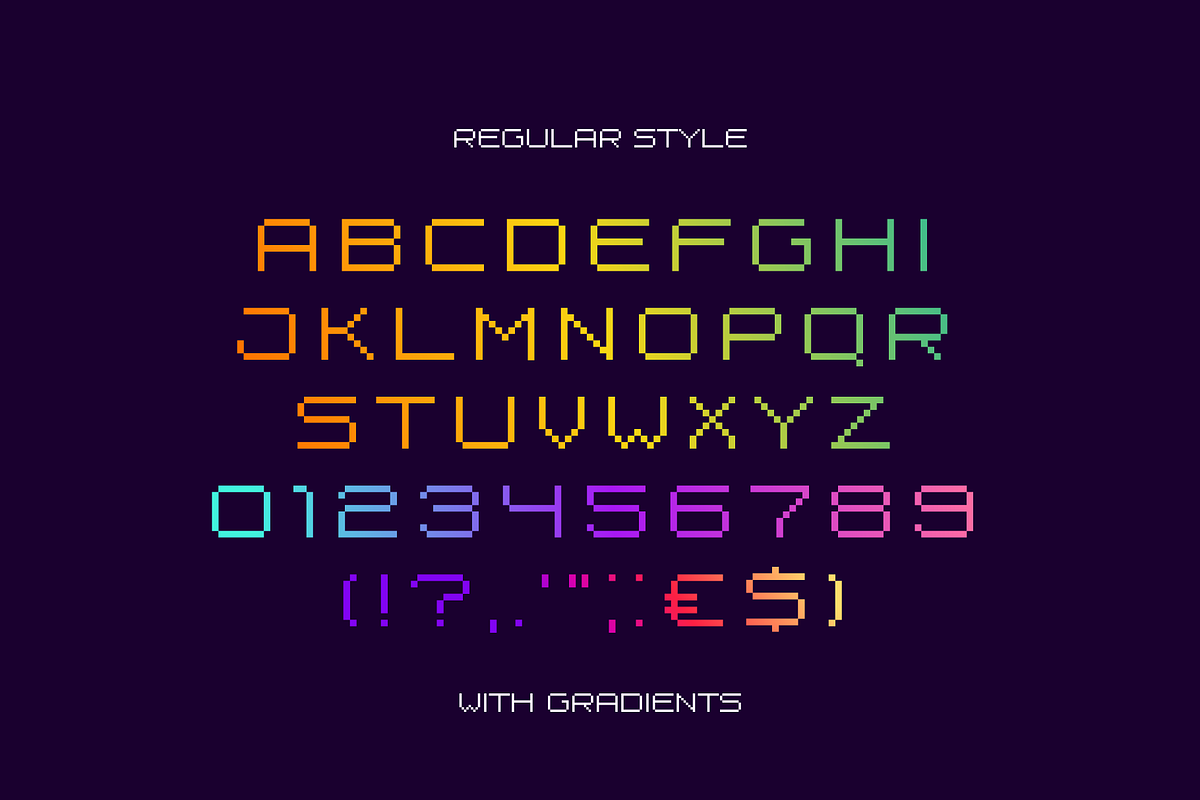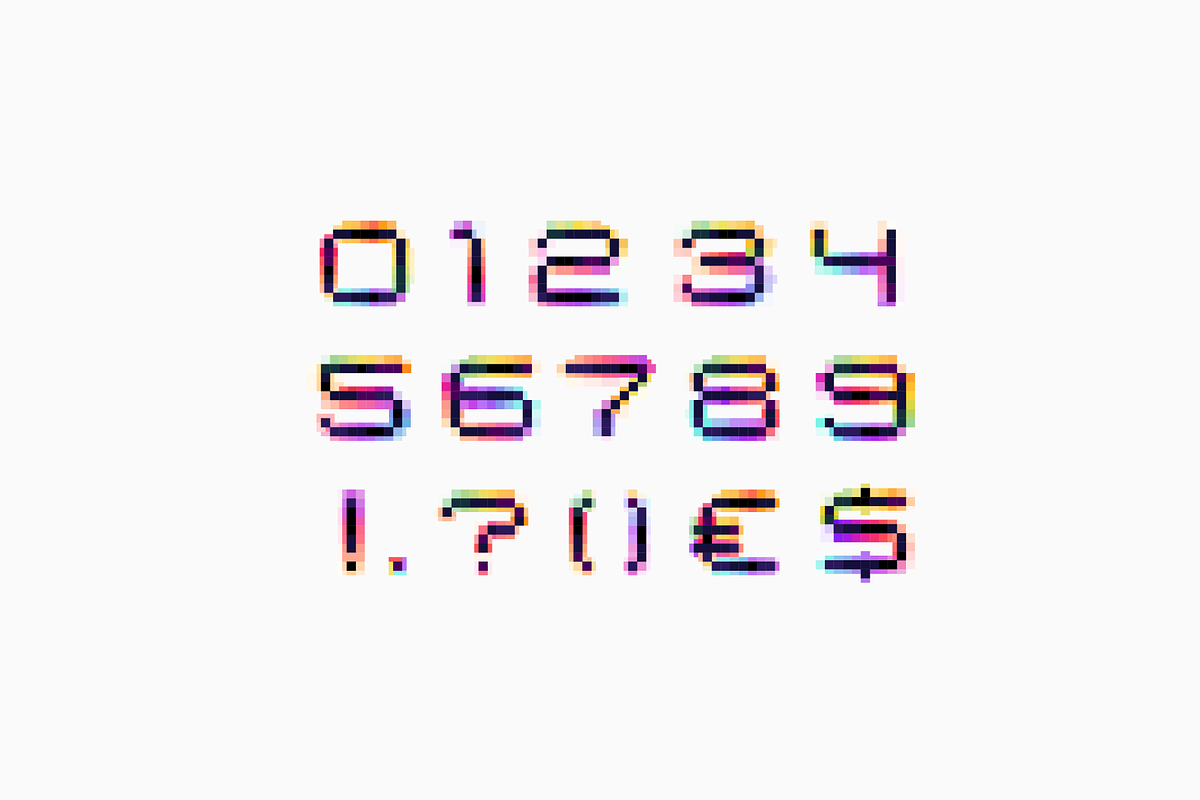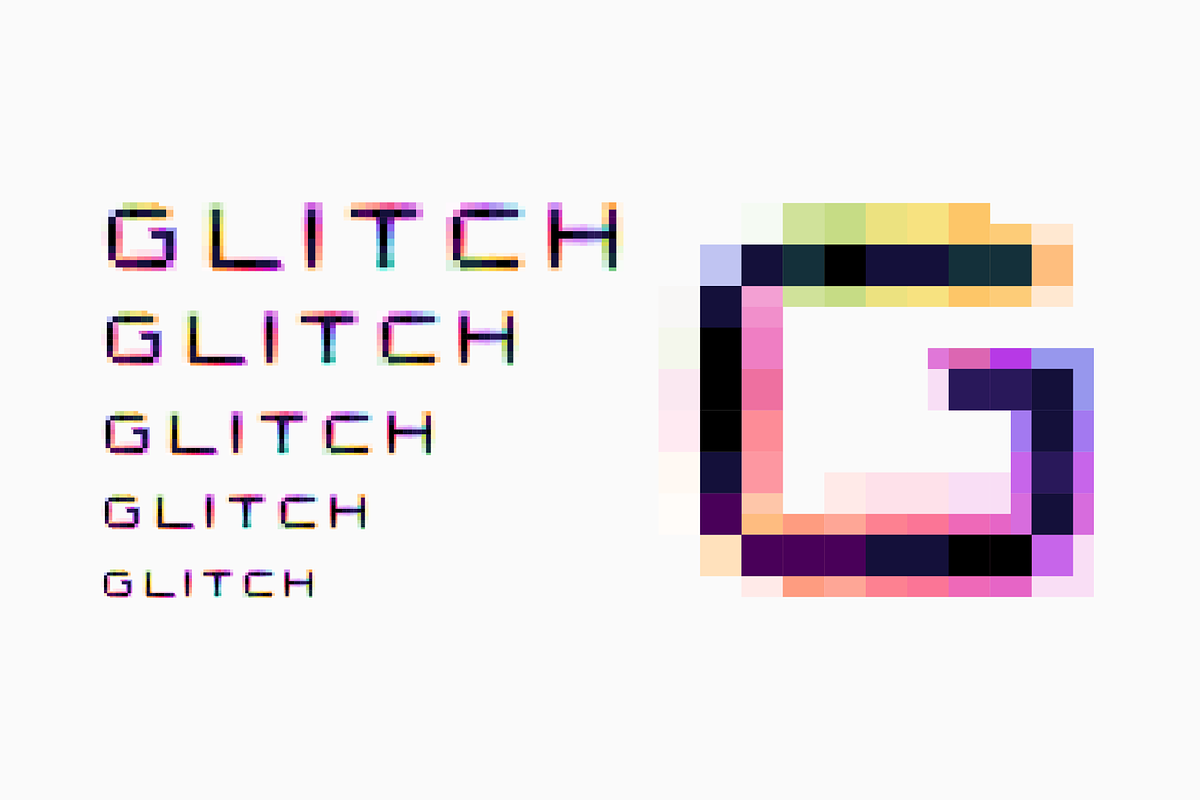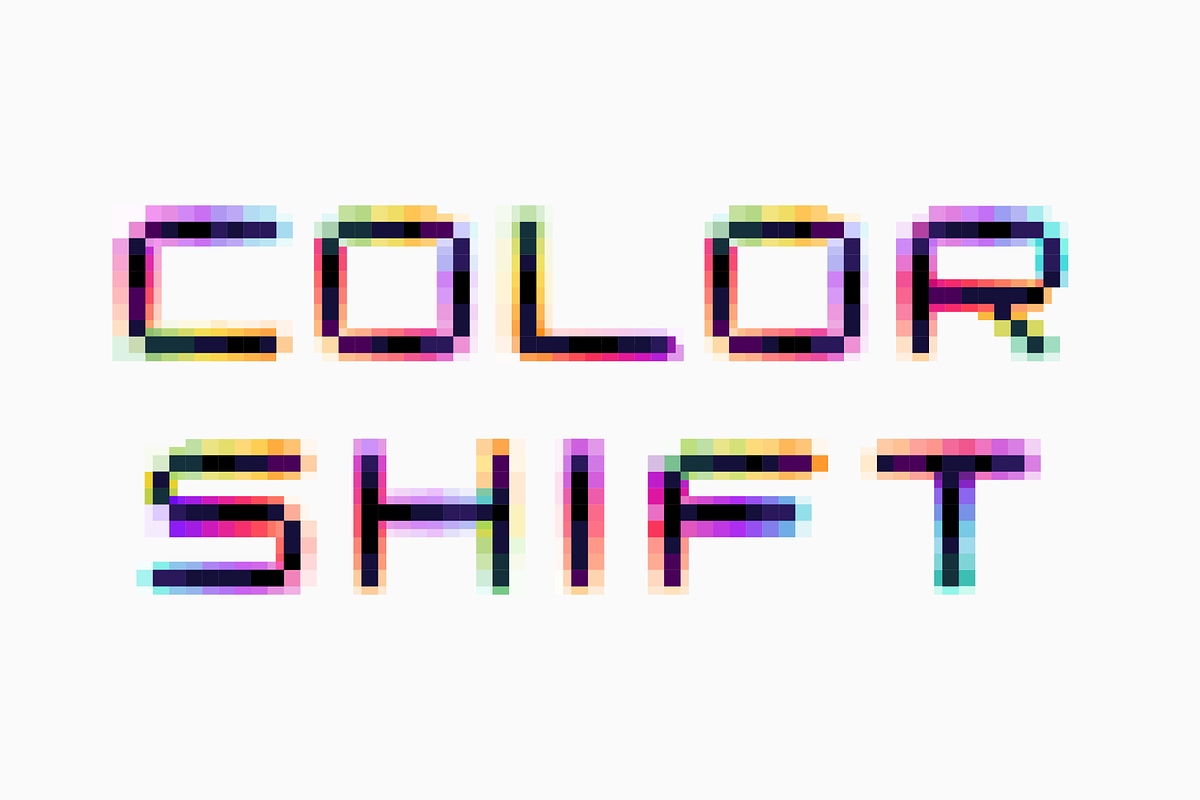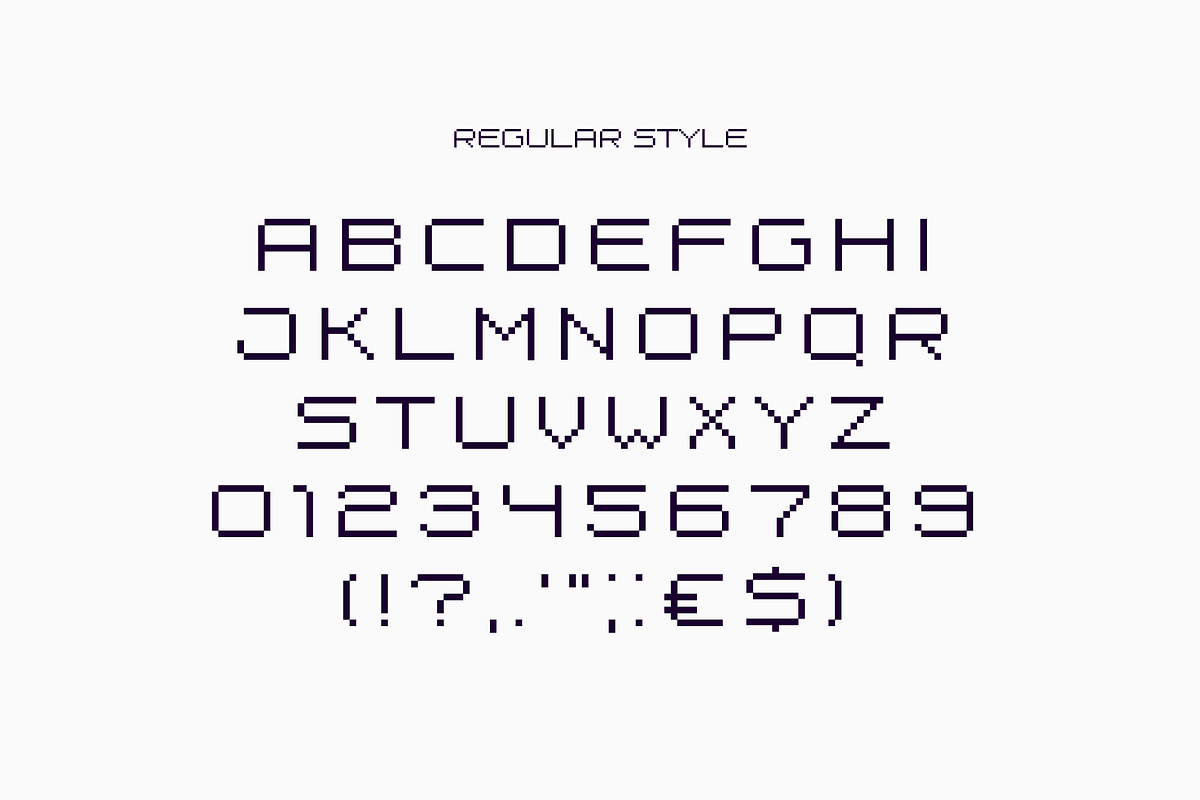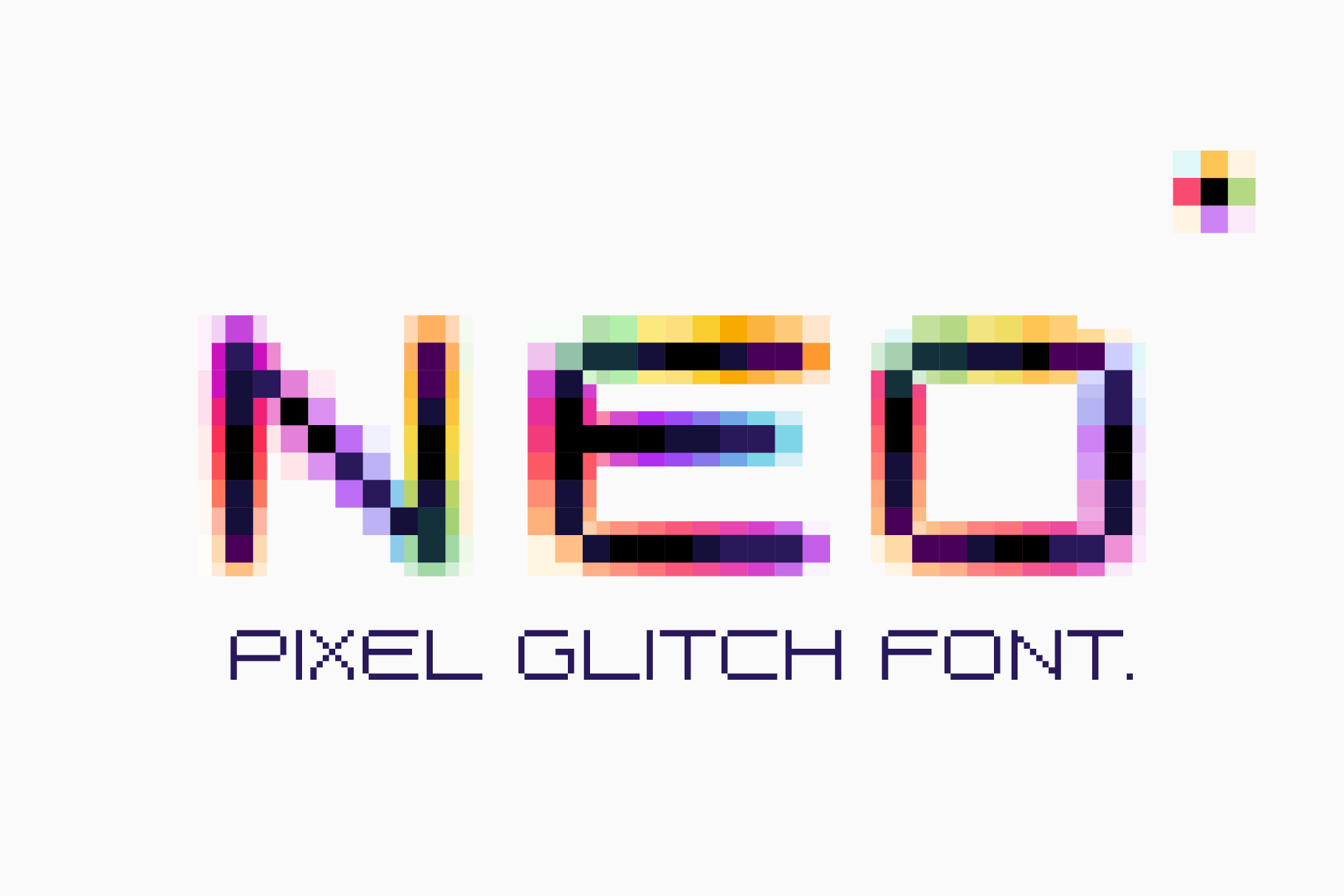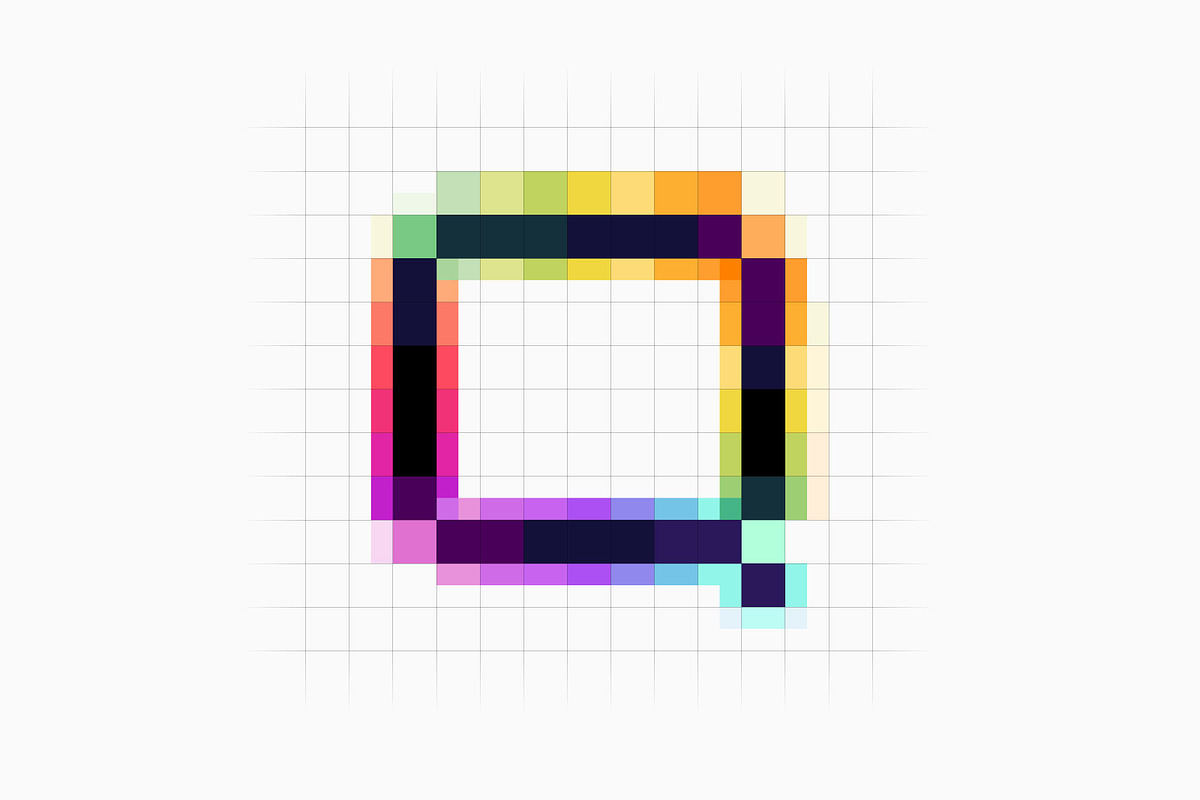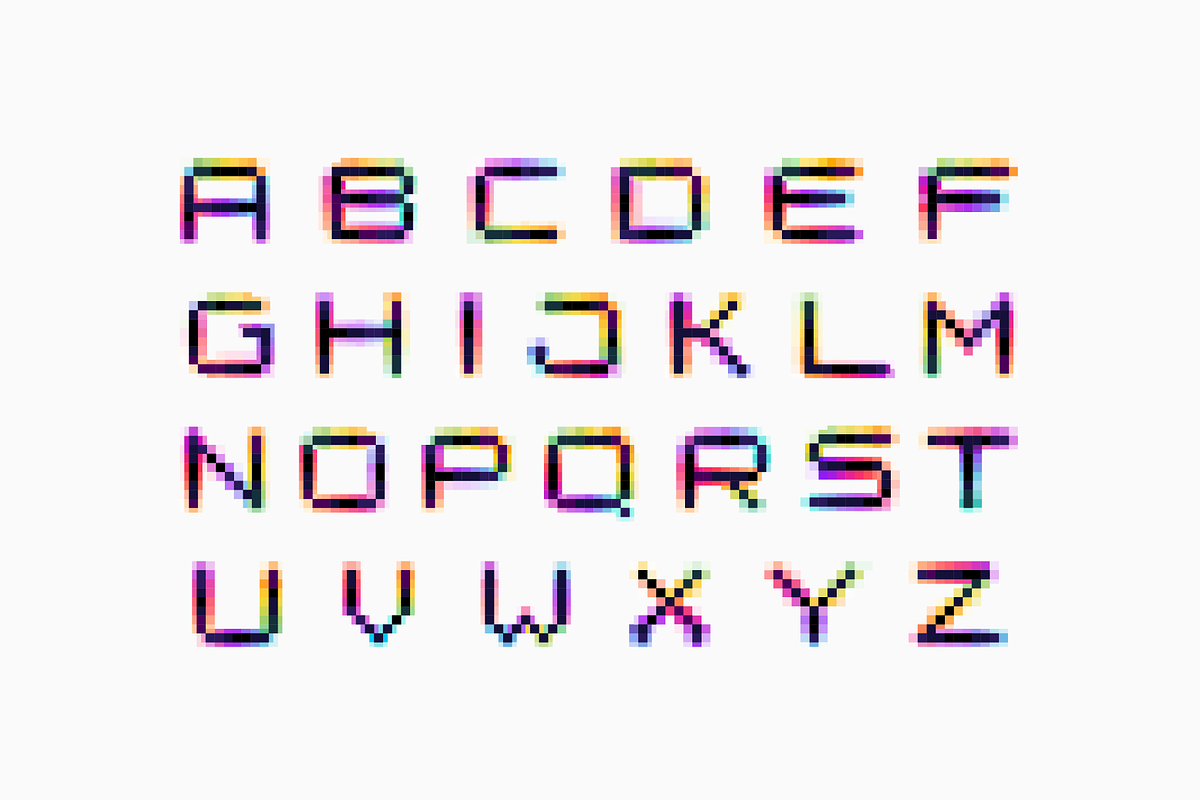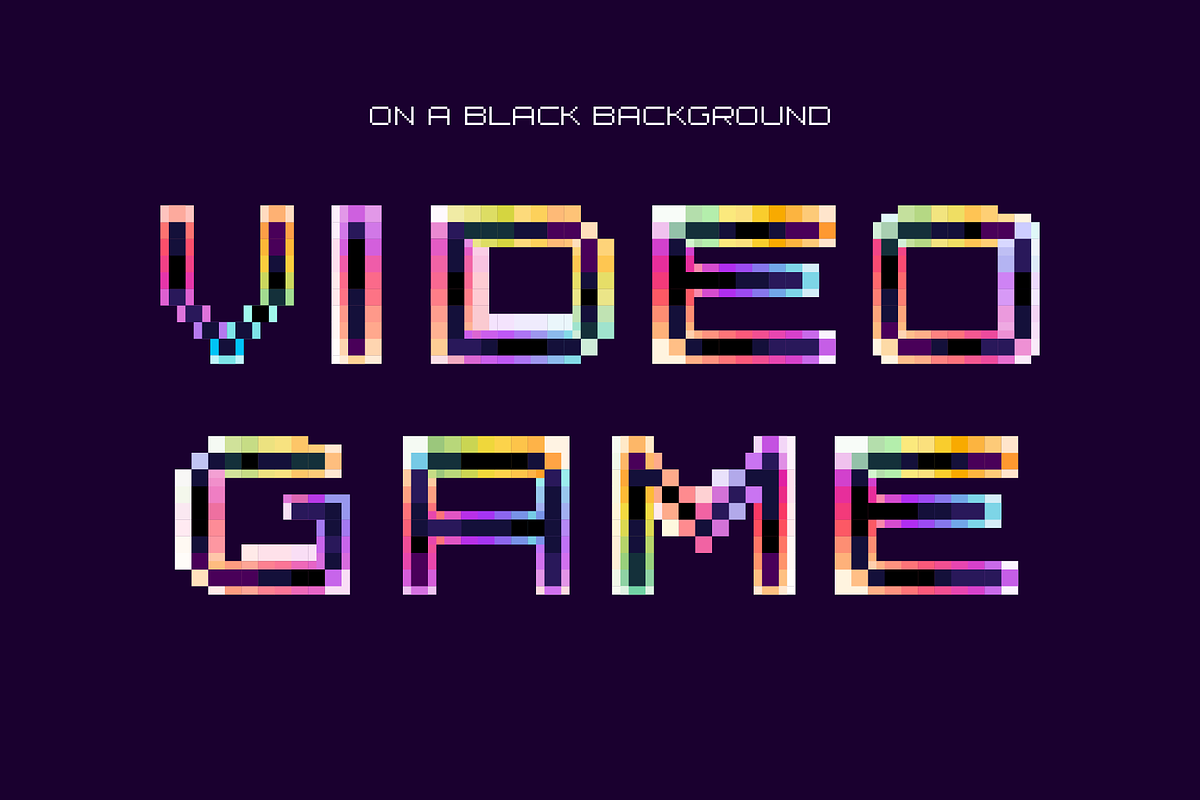
Neo Pixel pixel hologram glitch font
Hello! Do you need glitch distorted pixel font with color shift effect? Please use the ready-colored font I've made. Hologram style design.
- Colored and regular B&W styles
- Uppercase (lowercase glyphs are same)
- Numbers and symbols